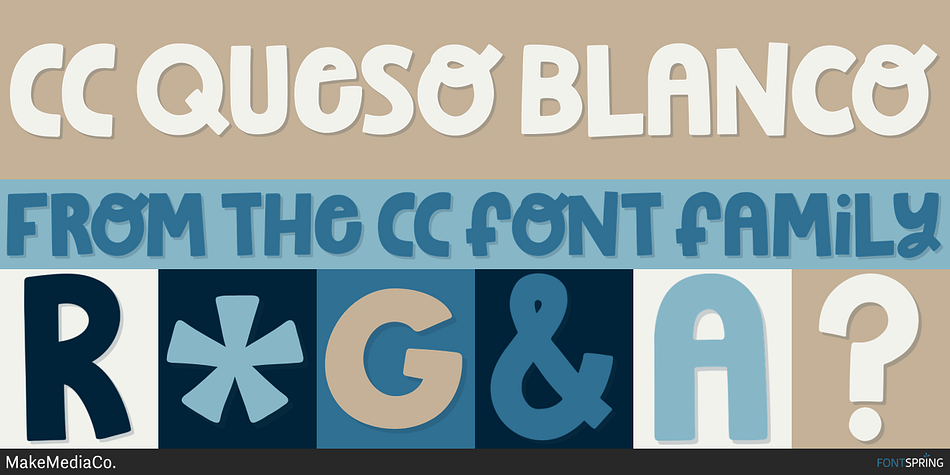
CC Queso Blanco
CC is a multiple classification font family. This typeface has nine styles and was published by MakeMediaCo.
• Queso Blanco (OTF) - My absolute favorite! This font was designed to create unique logos & typography with 24 unique dual letter combinations. Use a glyphs panel to access the fun alternates to make your stand-out designs!
• Queso Blanco (OTF) - When just one version isn’t enough, I’ve added a “dazzled” version for your creative pleasure.